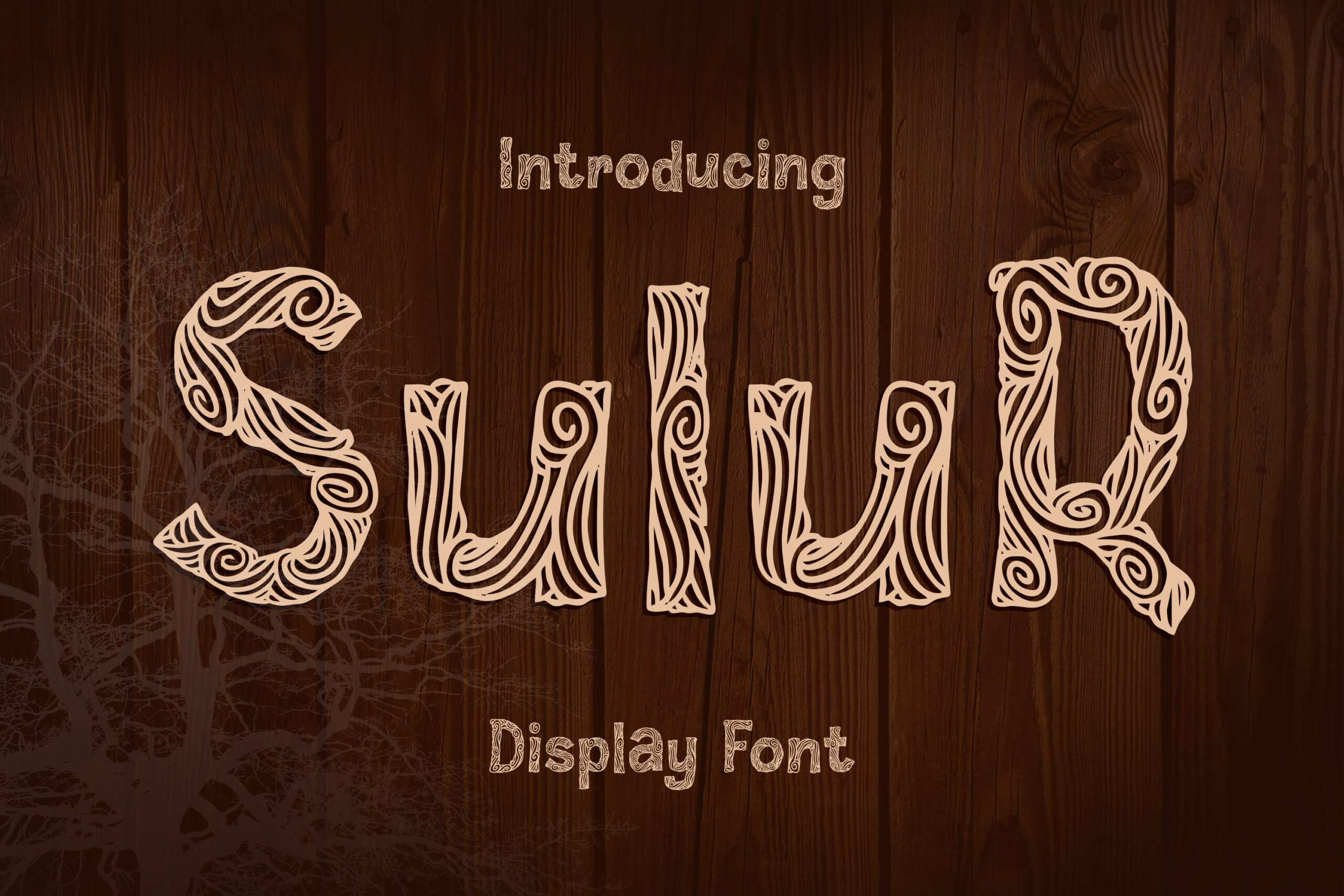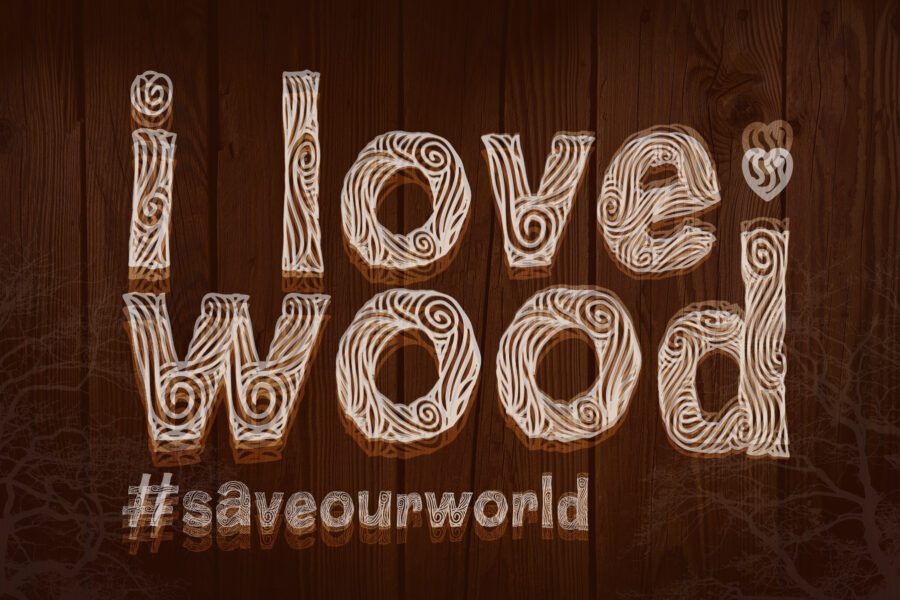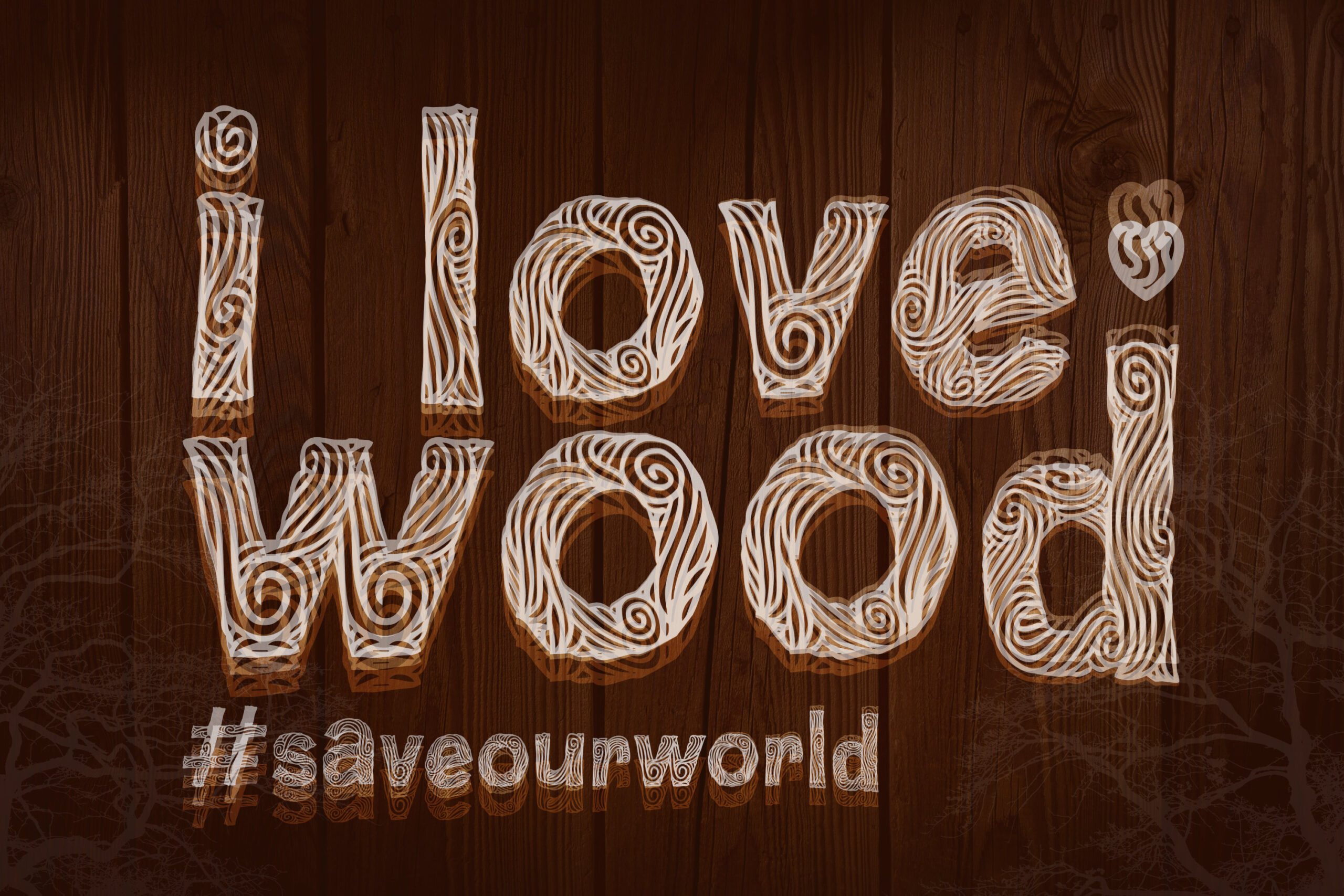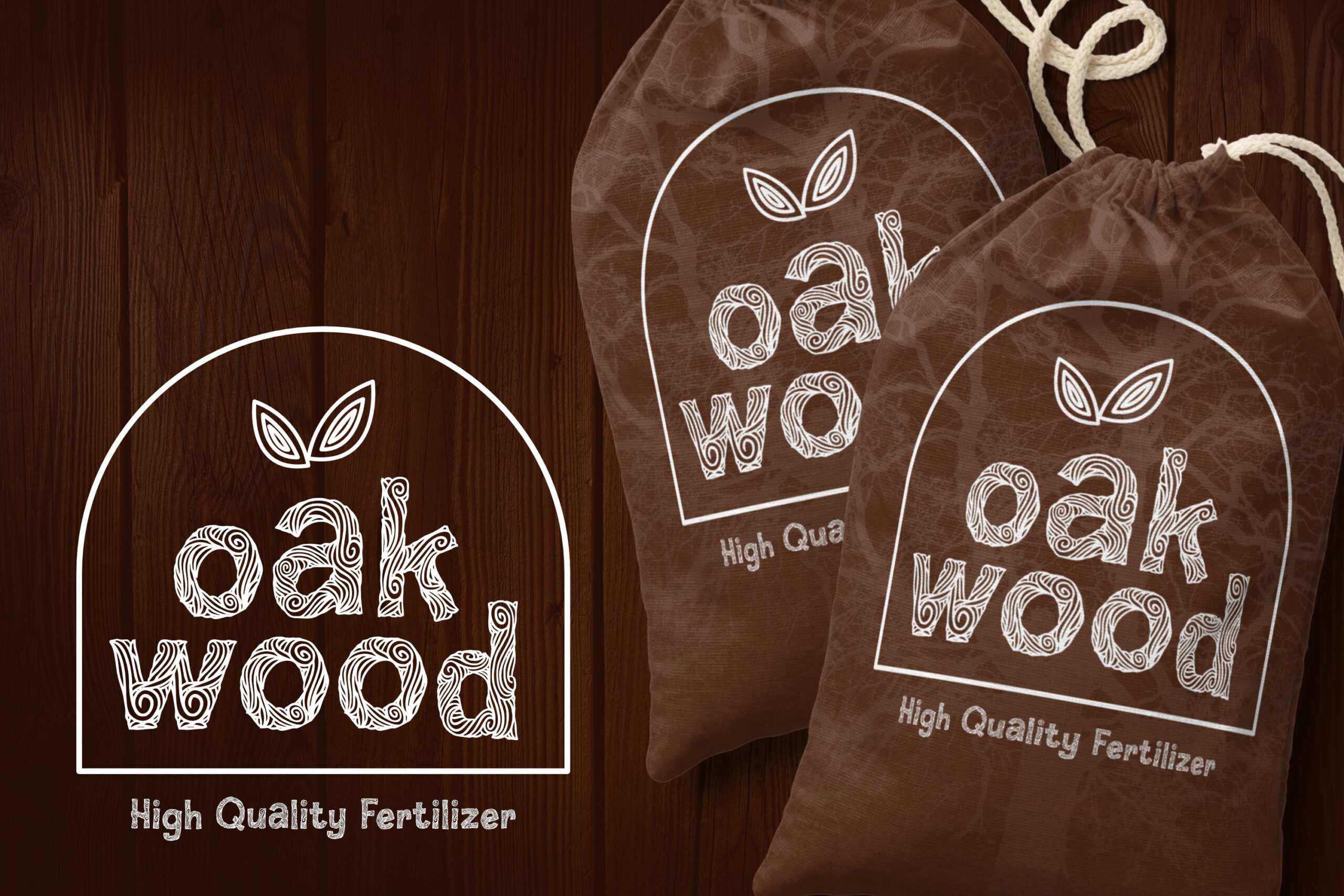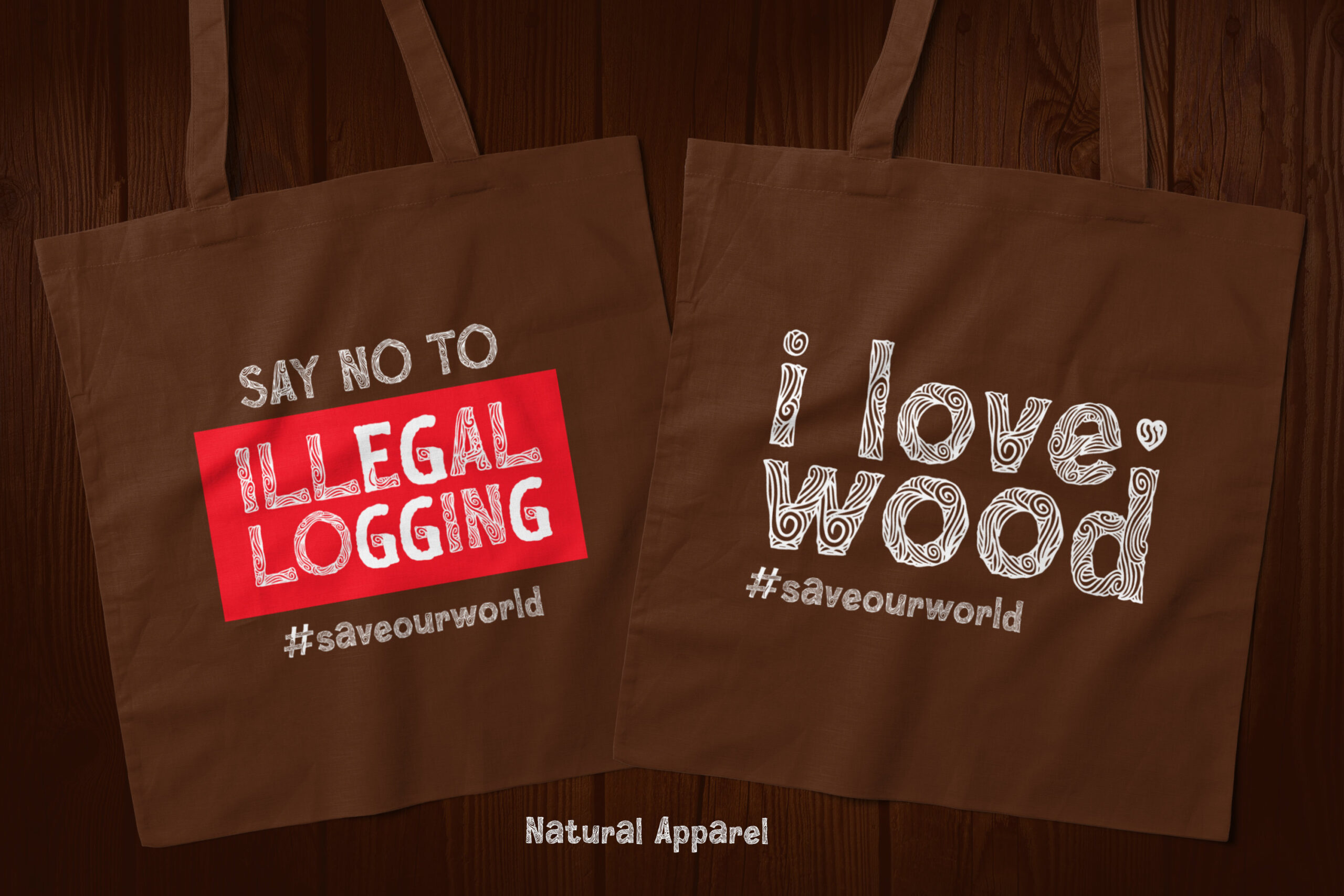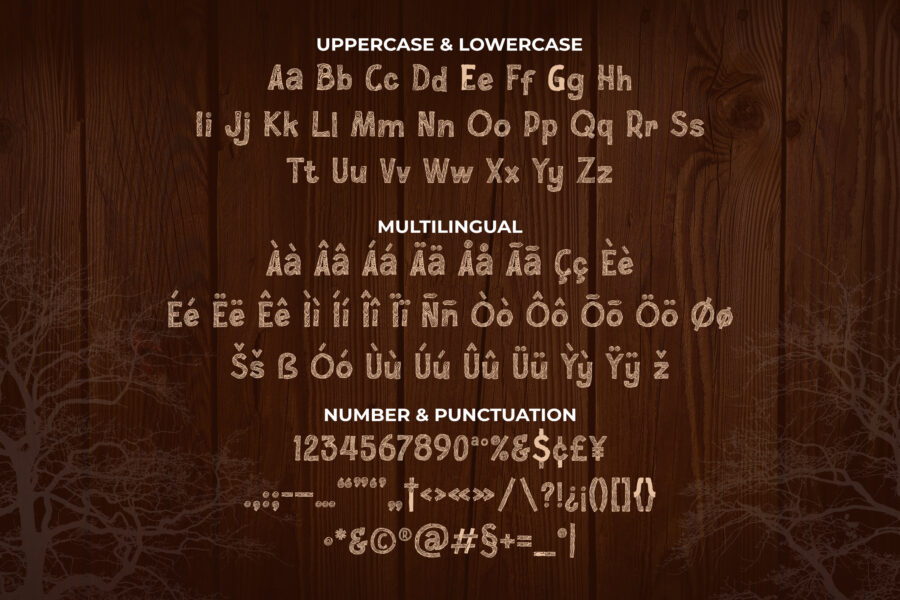
Sulur is a decorative display font inspired by the organic beauty of wood grains and swirling natural patterns. Its hand-drawn look gives a rustic yet artistic personality, making it a perfect choice for eco-friendly branding, environmental campaigns, natural product packaging, and earthy apparel designs. The intricate lines and wood-texture vibes make each character feel alive, like it’s been carved from the heart of the forest.
With full multilingual support, uppercase and lowercase letters, numbers, and punctuation, Sulur brings creative versatility to your typographic toolbox. Whether you’re promoting sustainable products, designing logotype art, or crafting a forest-themed editorial, this font helps your message stay rooted in nature while standing out with a bold, handcrafted charm.